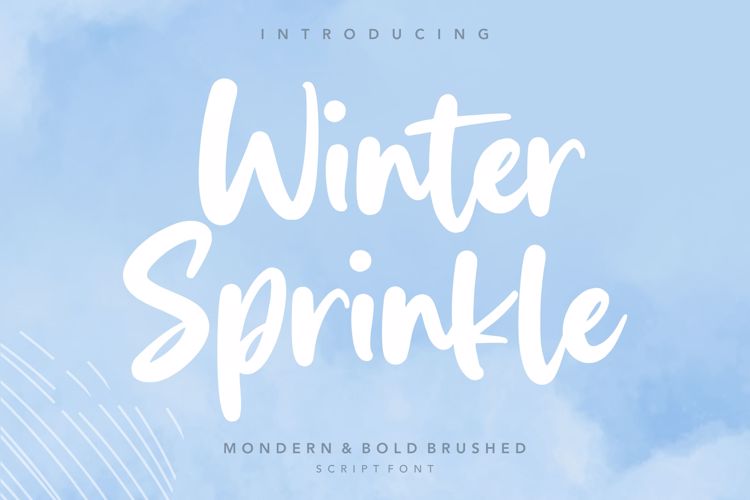
Winter Sprinkle Font
Introducing by Letterative Studio : Winter Sprinkle Font
Winter Sprinkle is a Modern & Bold Brushed Script Font
Winter Sprinkle is perfect for product packaging, branding project, megazine, social media, wedding, or just used to express words above the background.
Winter Sprinkle also multilingual support